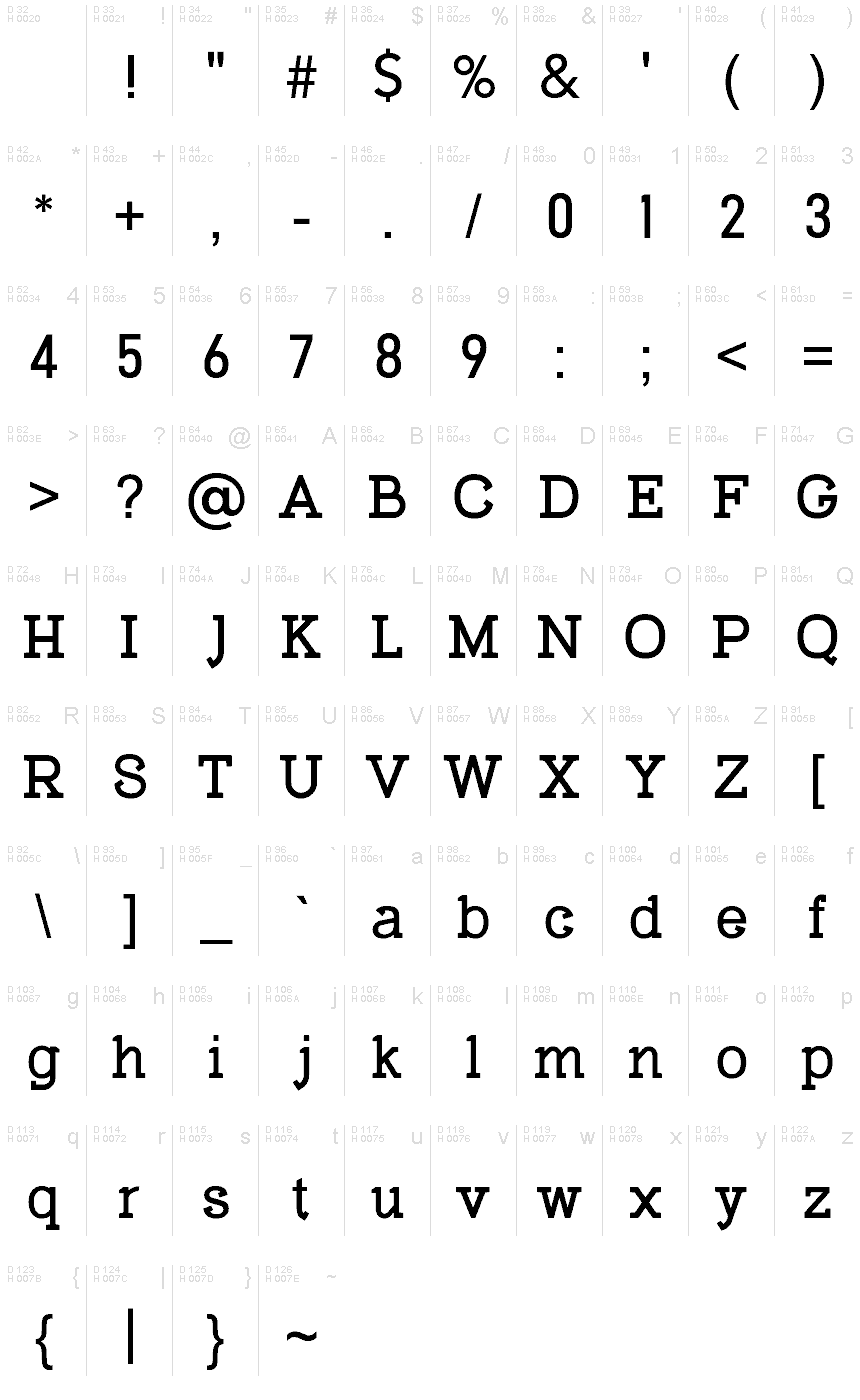
Smackers Display Regular
Smackers Display font by UI Creative is a structured and strong serif font with retro-inspired sensibilities. It carries a vintage appeal built primarily on the slab letters and their fine executions. The slender glyphs can easily bring the human touch found in the old-style letters used by medieval scribes if designed for personal or commercial work.
This free serif font can be used in book designs (covers, chapter openings), inside of editorial spreads, posters, website interfaces, mobile app design, digital ads and posts. It’s available in different weights fitting even large billboards with the help of bolder styles.